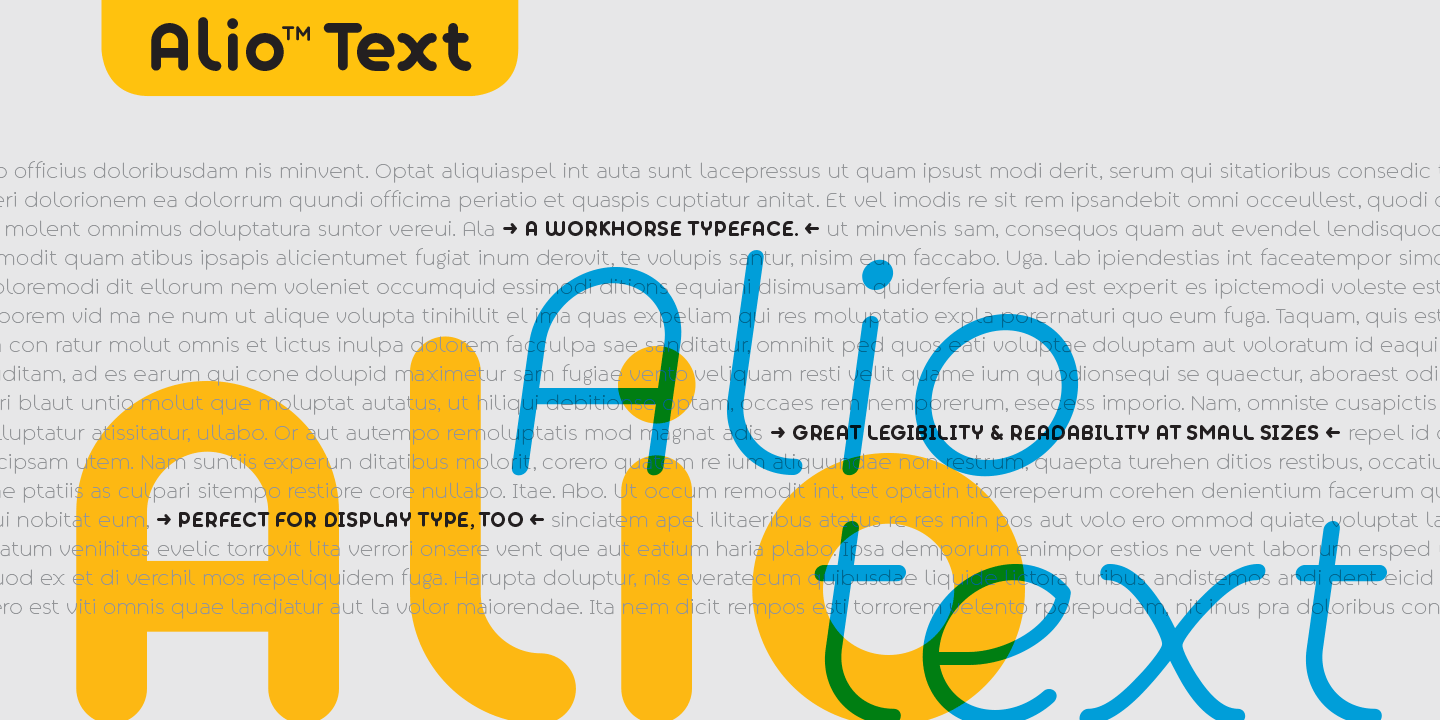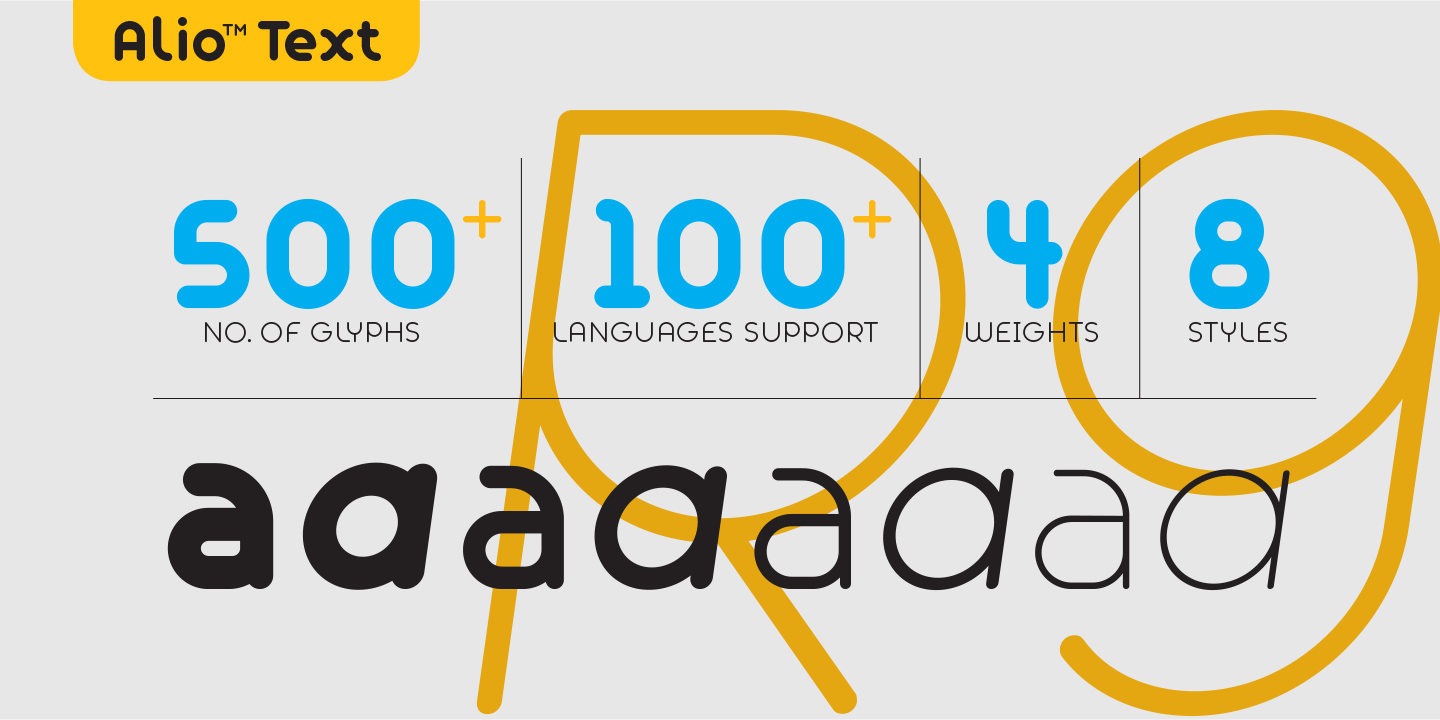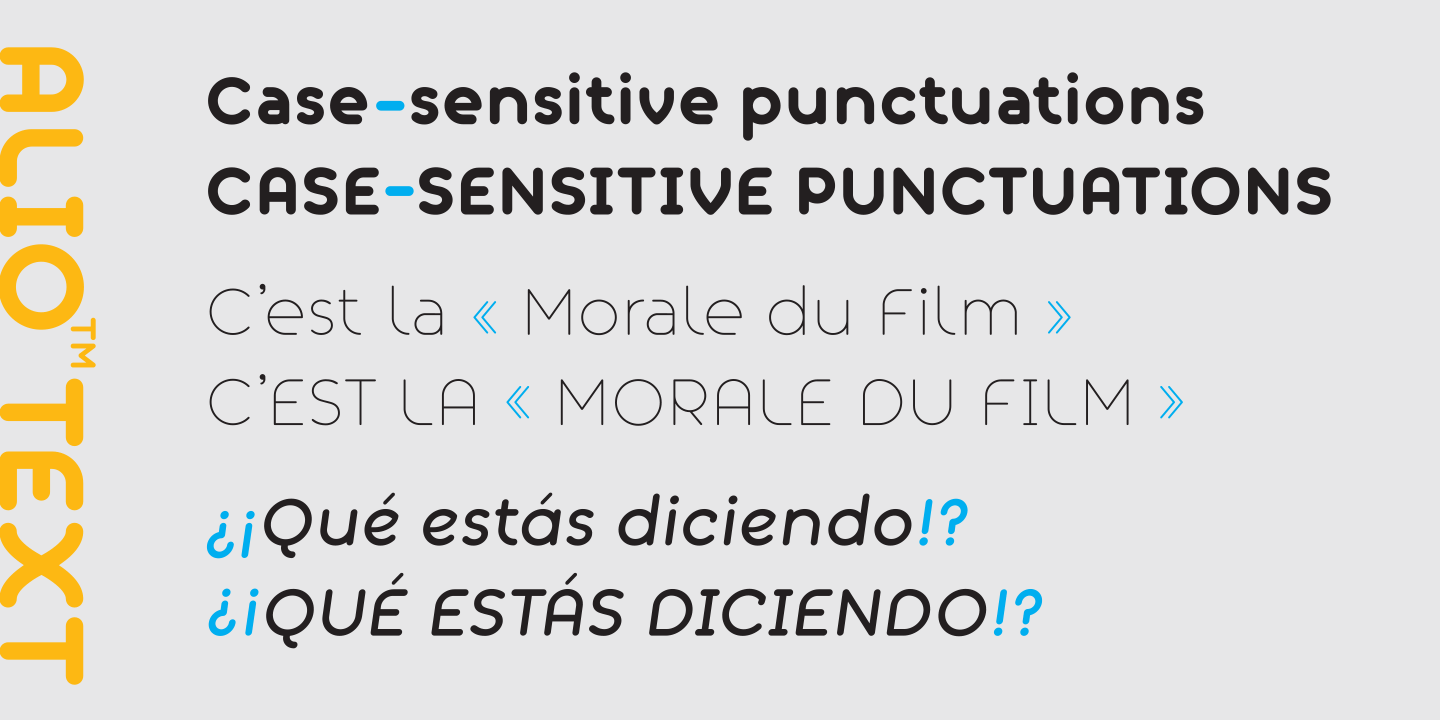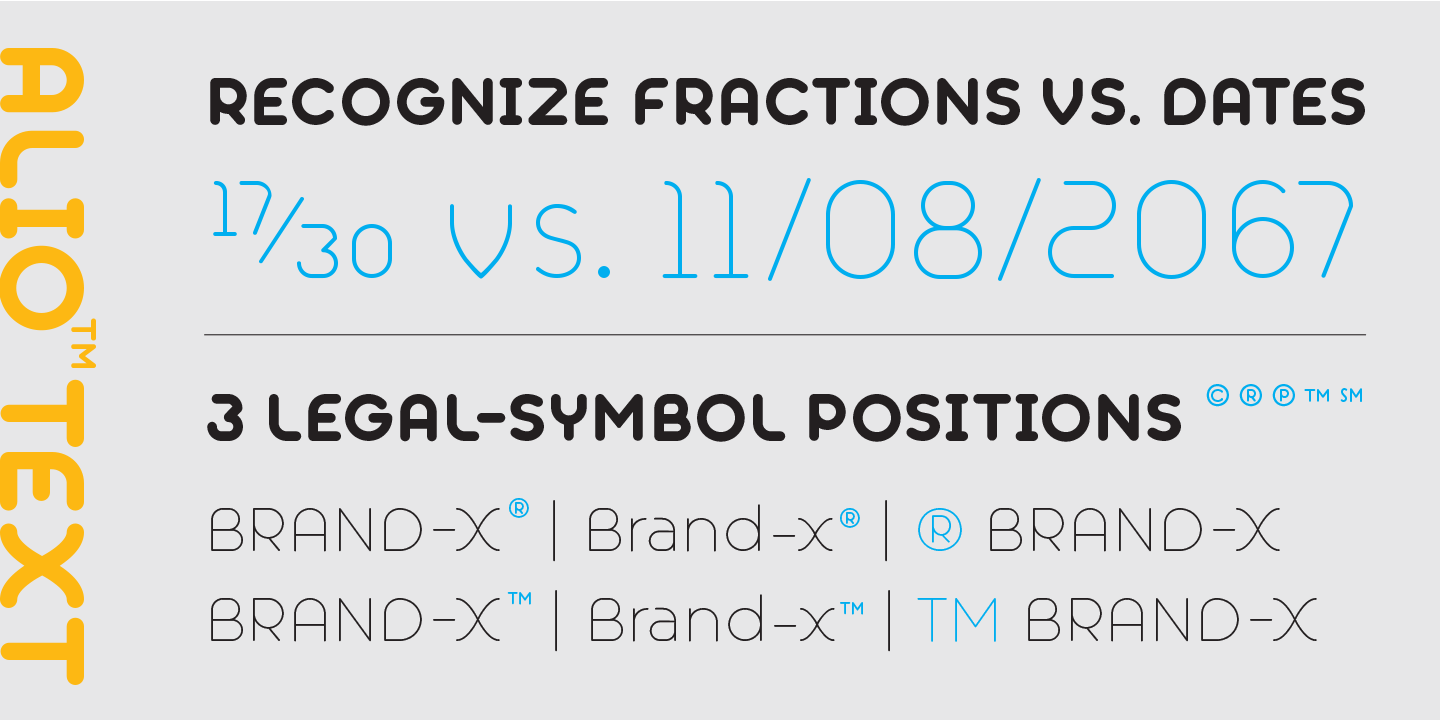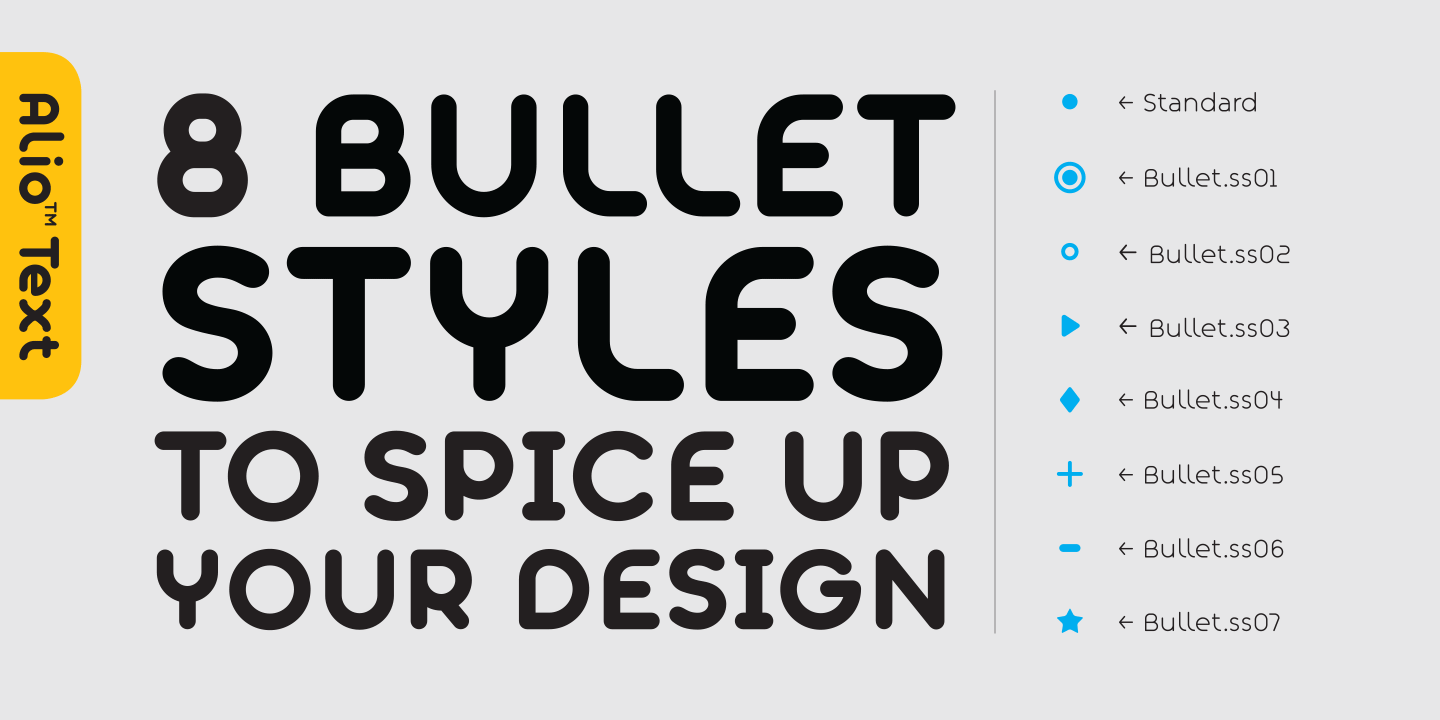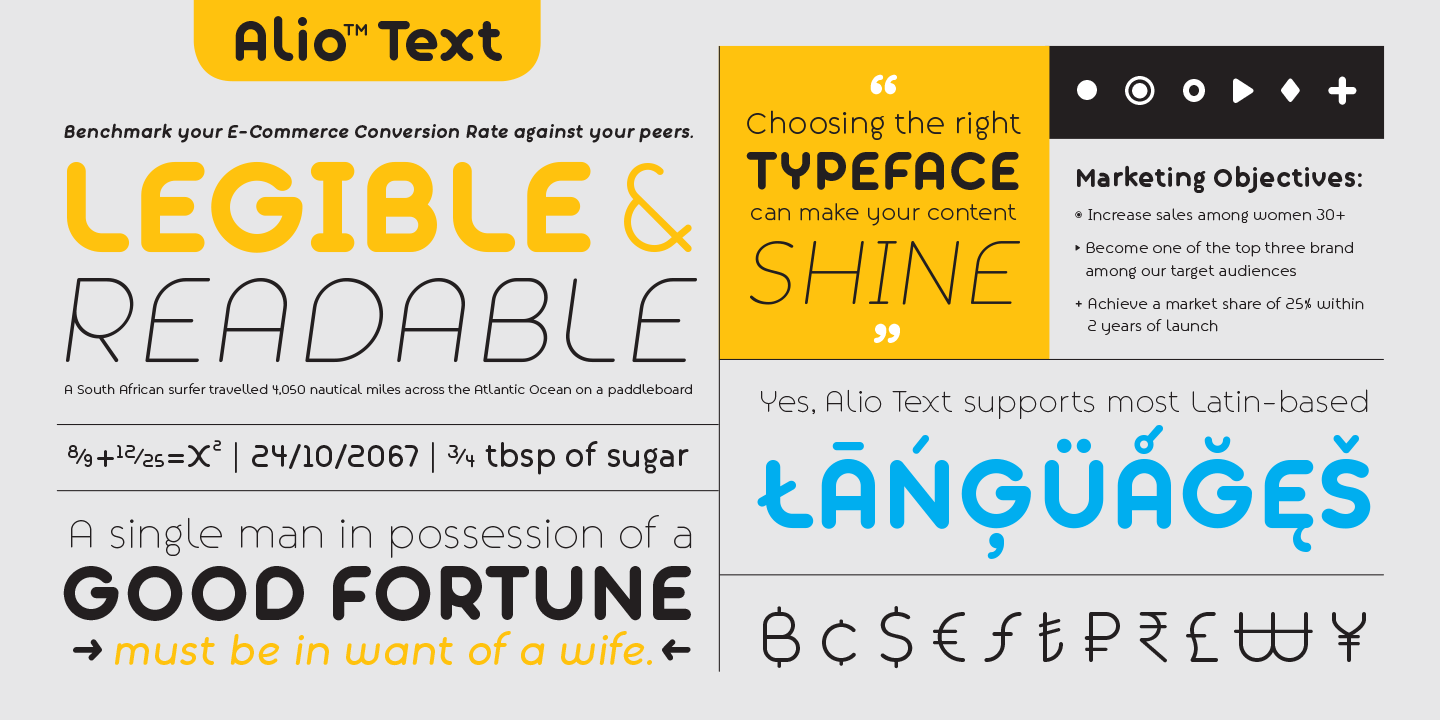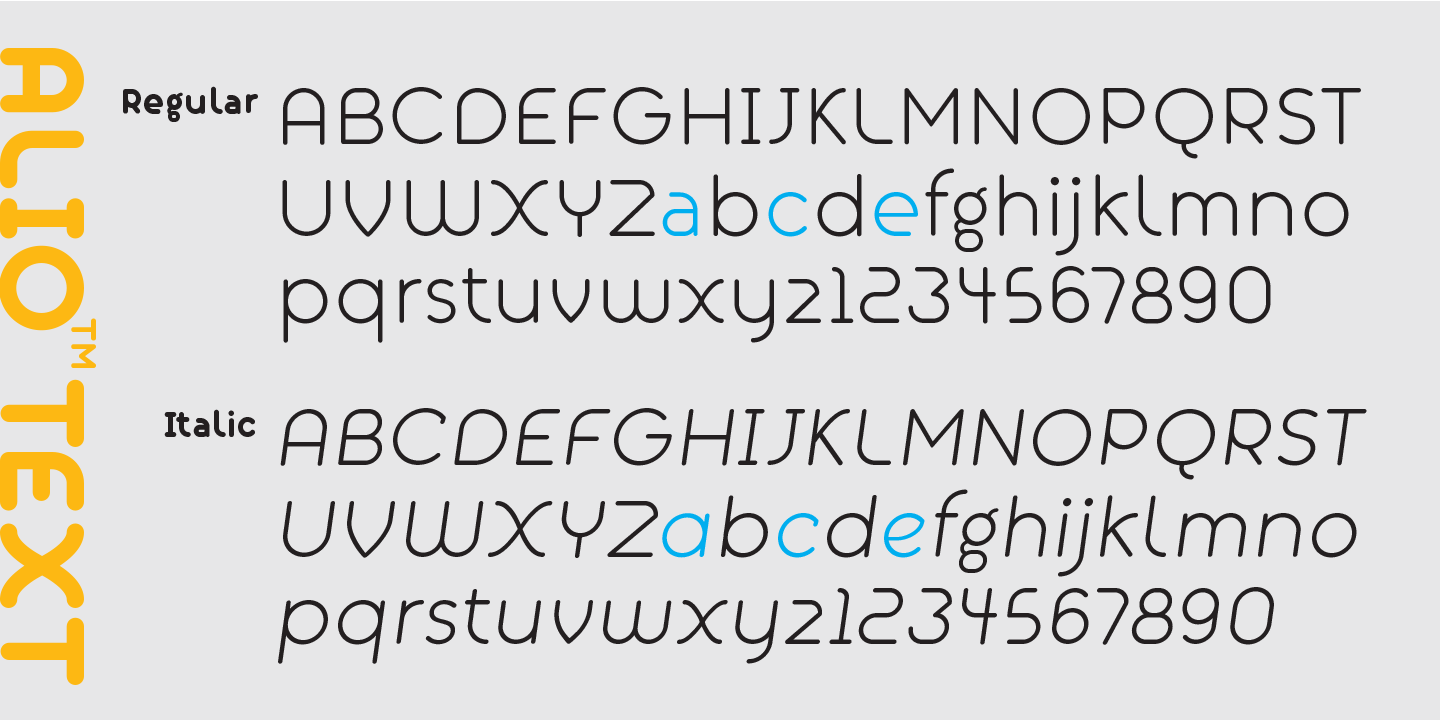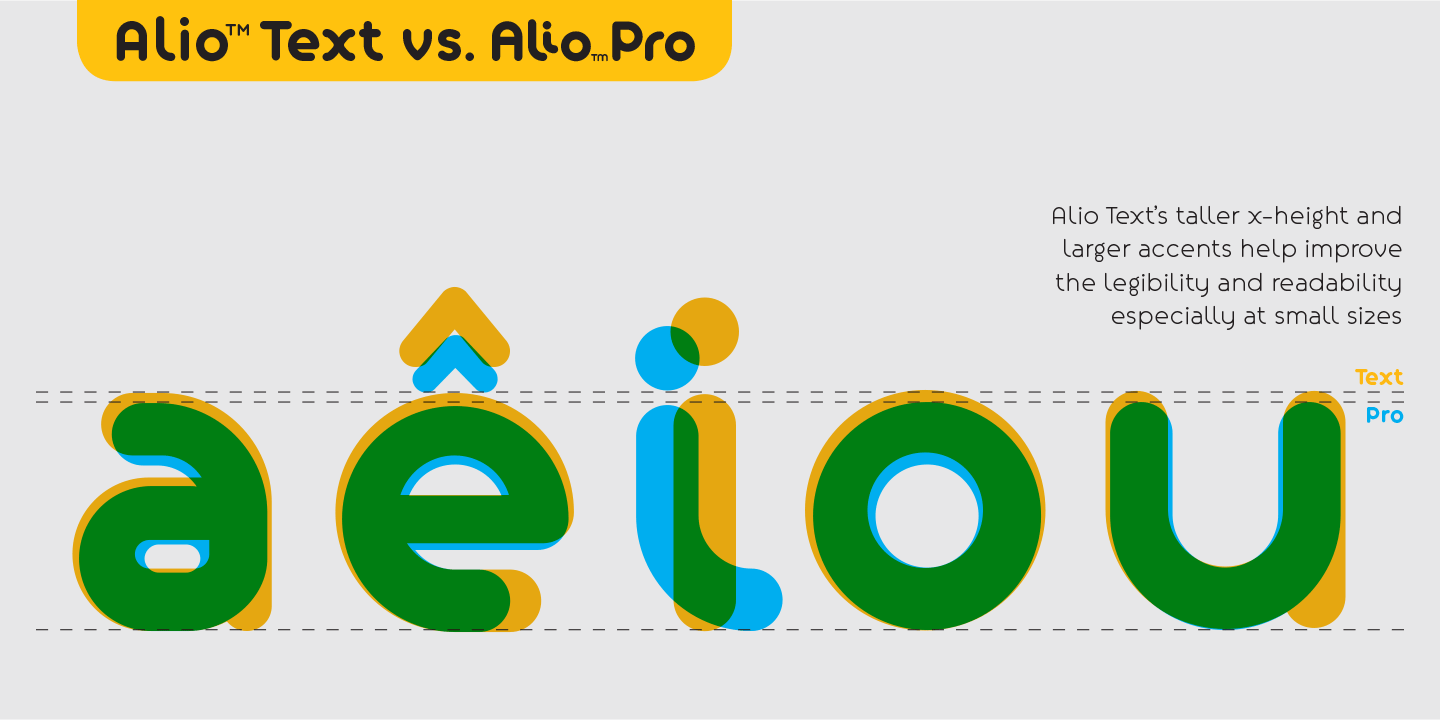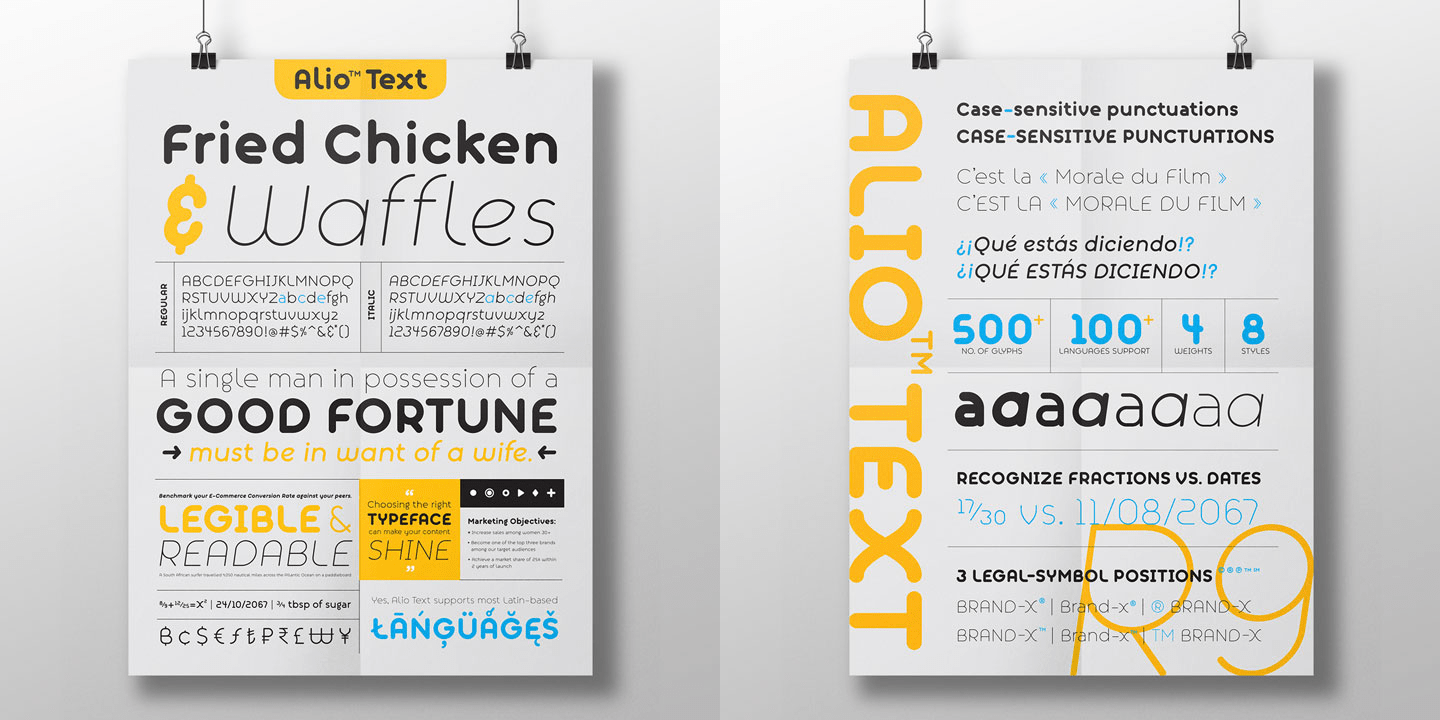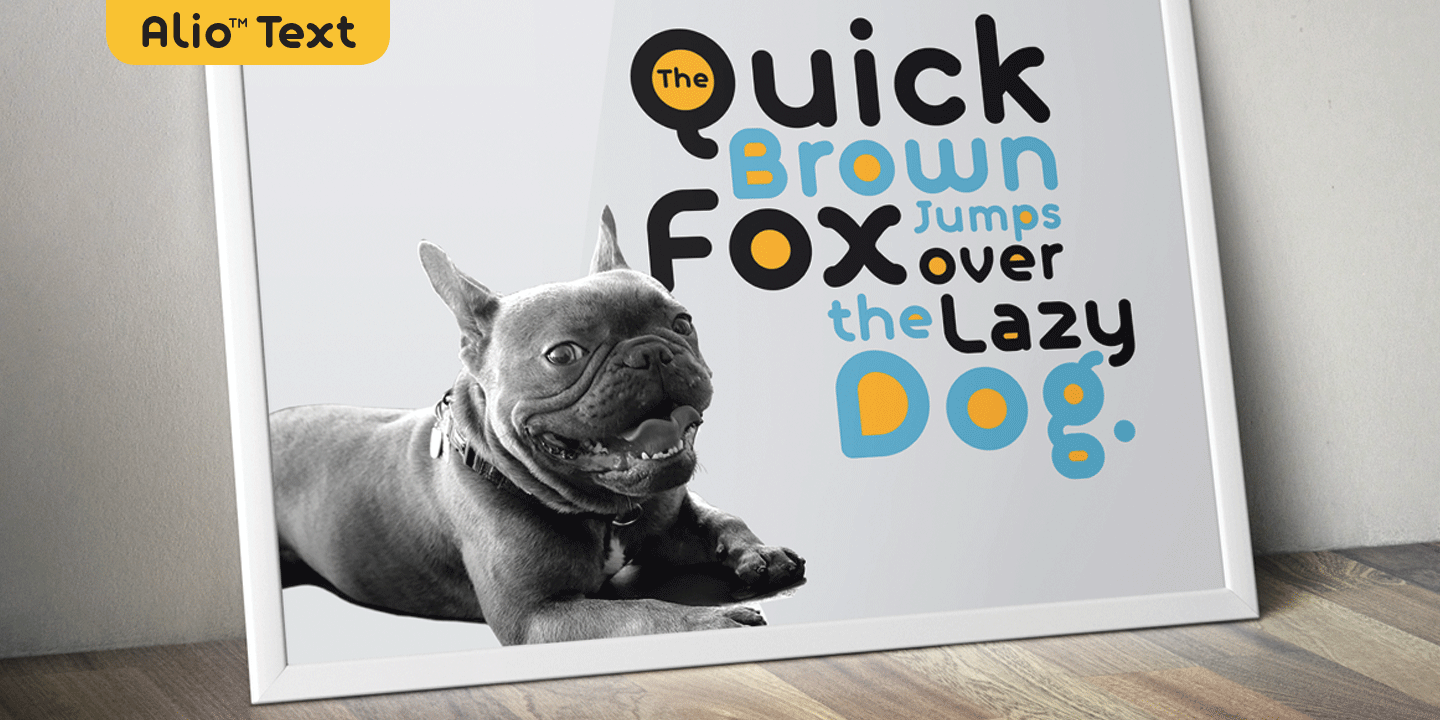
Alio Text
Buy NowAlio? Text is the workhorse of the Alio family. It works beautifully on both digital and prints as display type, body copy and anything in between. We redesigned Alio Text with a taller x-height, more pronounced accents, and wider letter spacing than its siblings, Alio? Pro.
We also cut down from 6 weights/12 styles to 4 weights/8 styles. All of these is to ensure the legibility and readability and to maximize the weight contrast at small sizes. The round geometric design of Alio Text gives the typeface a friendly and approachable vibe, perfect for branding.
Whether your projects call for all caps, title case, sentence case or all lowercase, Alio Text has got you covered with the case-sensitive punctuations. No more baseline shift all your punctuations.
Alio Text supports most Latin-based languages and even the Chinese Pin-Yin. This typeface also packs with Open-Type features similar to Alio Pro. For examples, both recognize fractions vs. dates; Both features several alternate positions for the legal symbols (3 in Alio Text; 5 in Alio Pro). If you're looking for a go-to, versatile, and modern typeface that works
across platforms from the web to prints, Alio Text is for you. (4 weights/8 font styles, 500+ glyphs each).